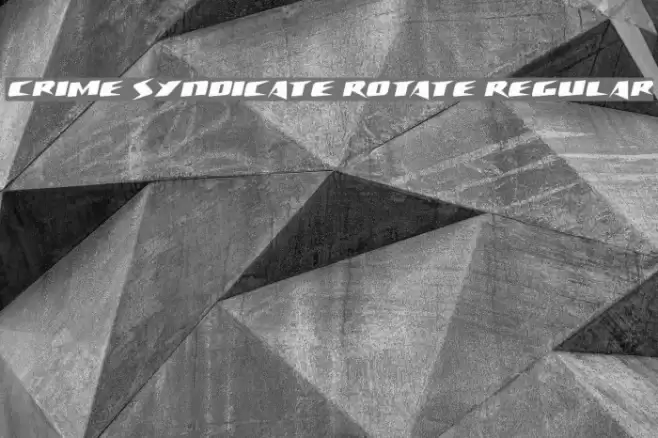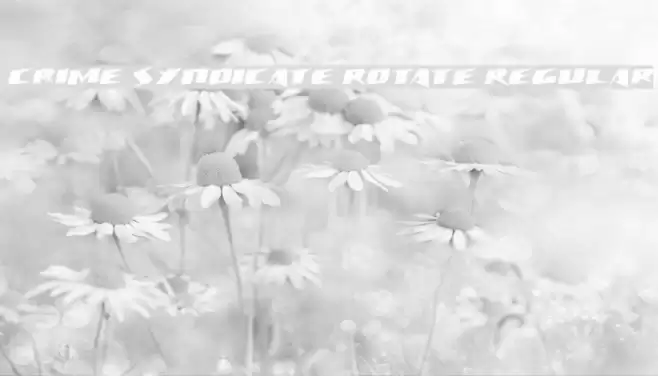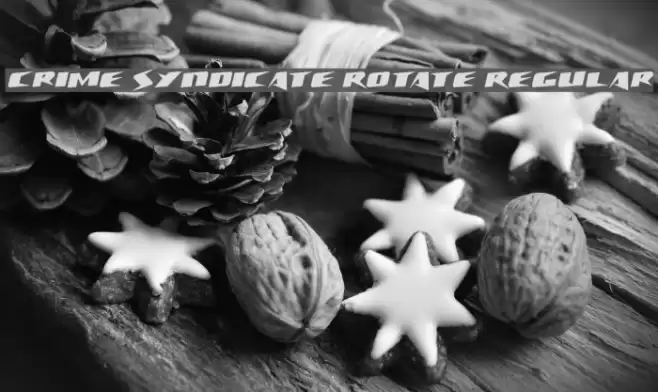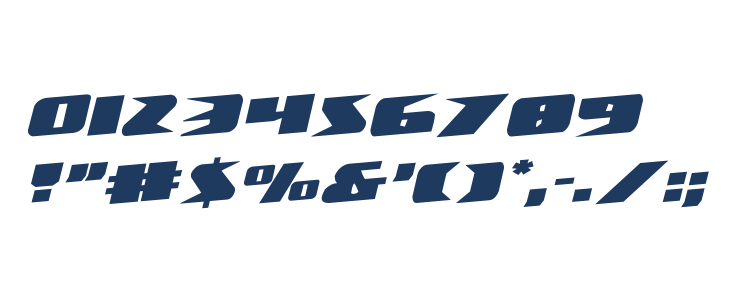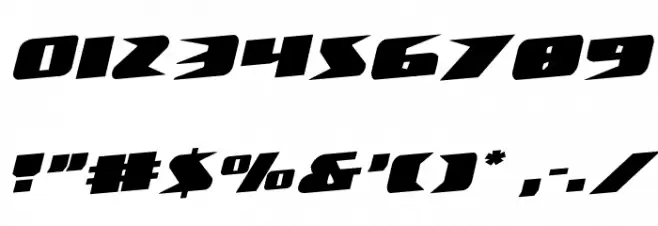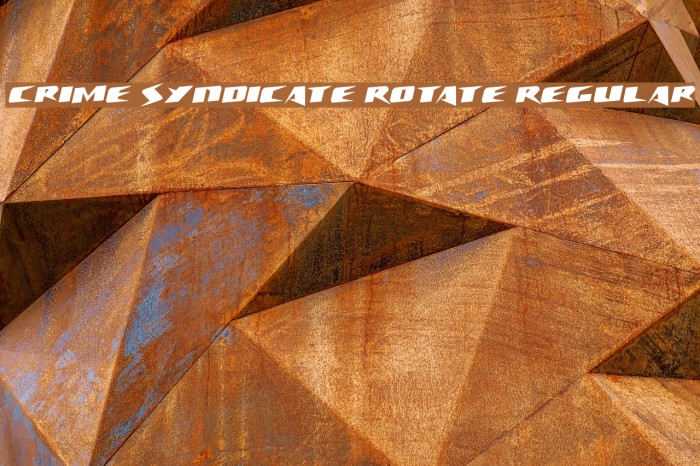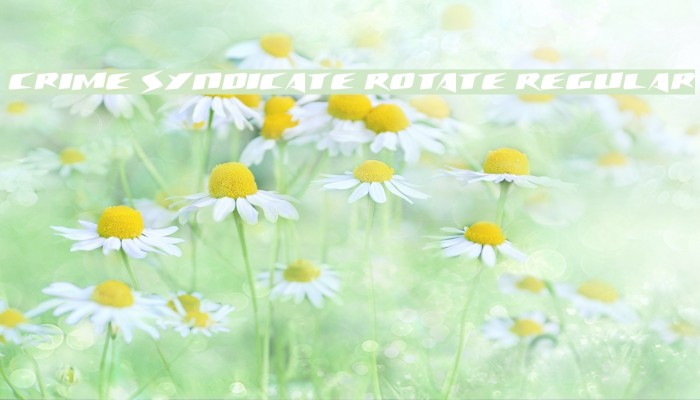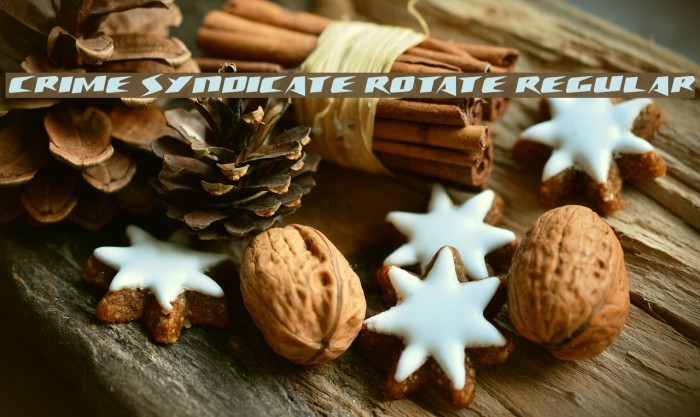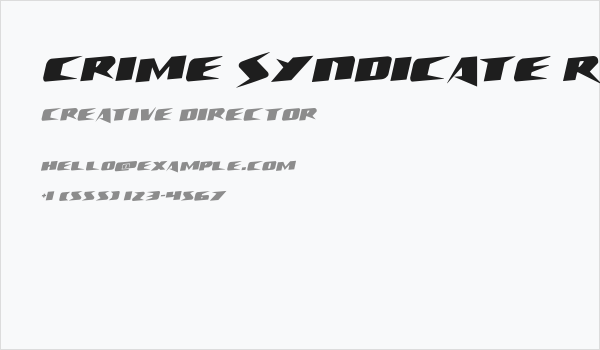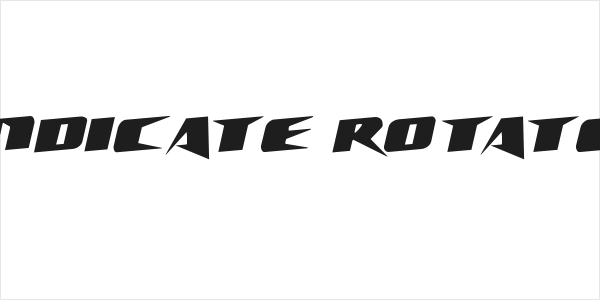
Crime Syndicate Rotate Regular Font
Crime Syndicate Rotate Regular Description
This font features a bold and dynamic style with sharp, angular edges that give it a futuristic and edgy appearance. The characters are slightly slanted, adding a sense of motion and energy. The uppercase and lowercase letters maintain a consistent style, with the uppercase being more pronounced. Numbers and special characters are designed to match the overall aesthetic, ensuring a cohesive look. The font's unique design makes it stand out, suitable for projects that require a strong visual impact.
A bold, angular font with a futuristic and dynamic style from Uncategorized fonts.
- Proposed Projects: Ideal for video game titles, movie posters, branding for tech companies, and any project needing a modern, edgy look.